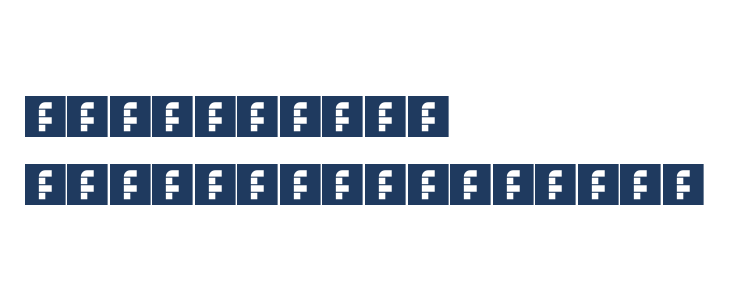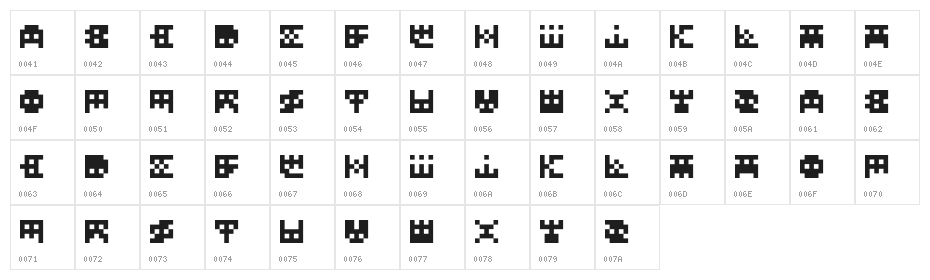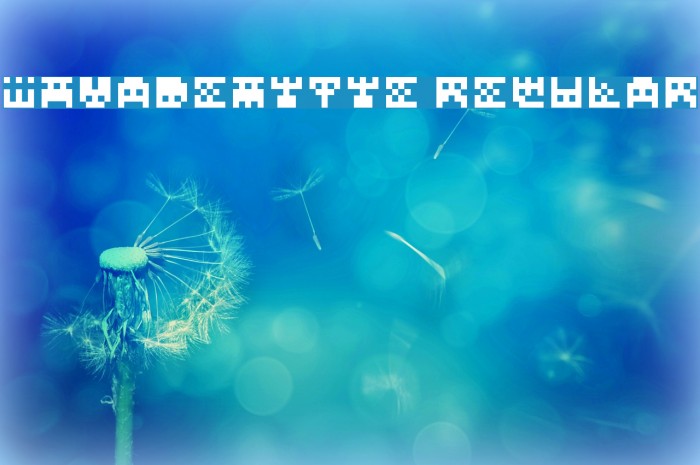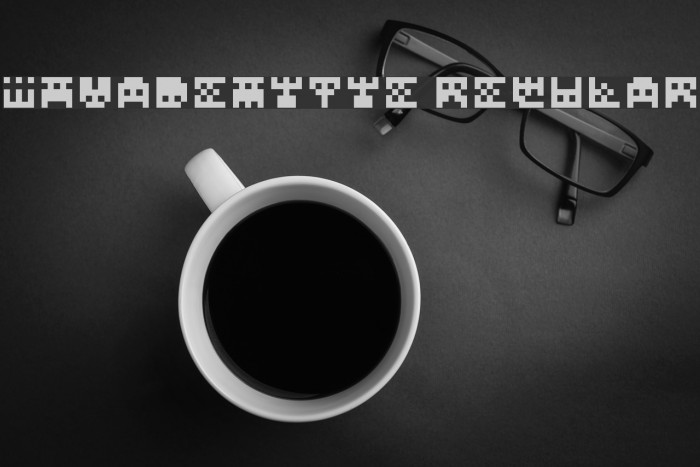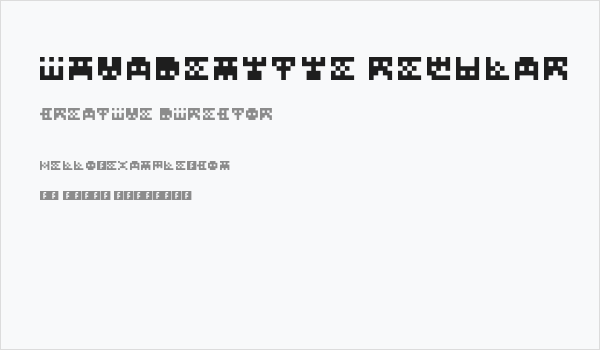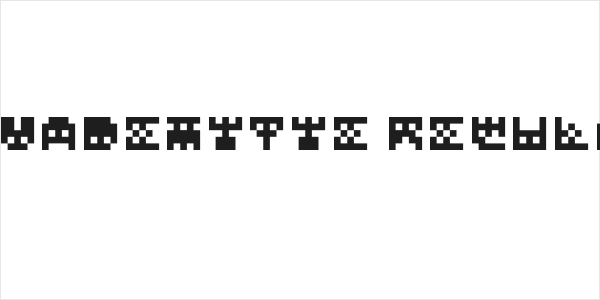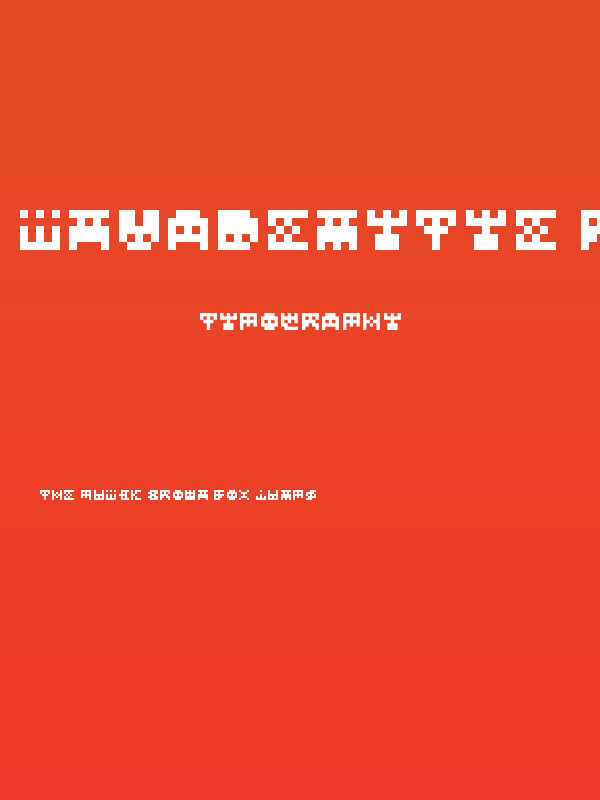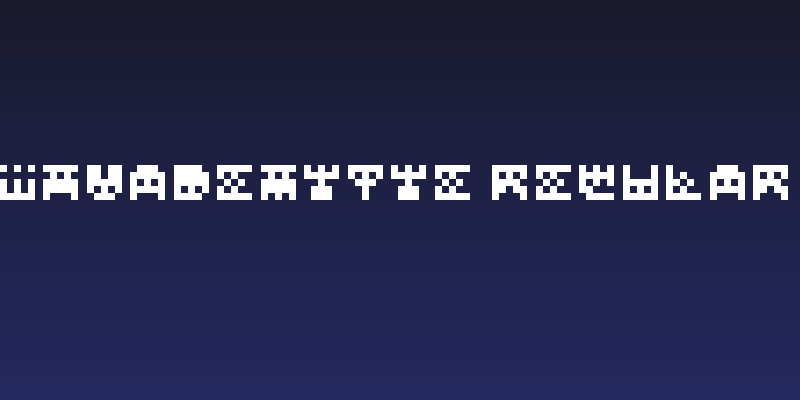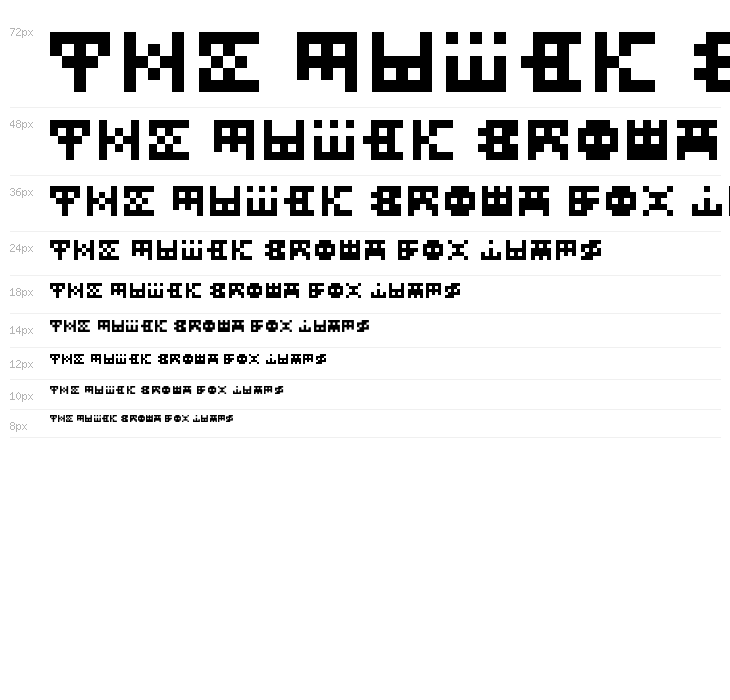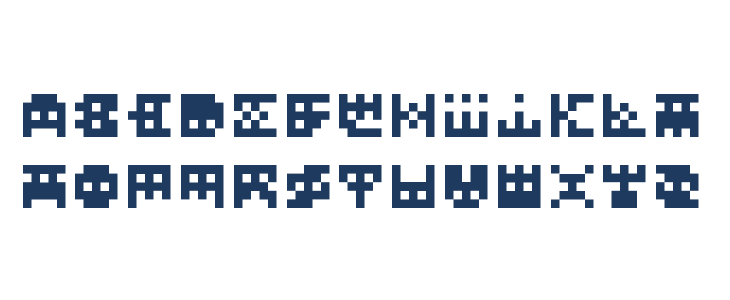
InvadeMytye Regular Font
InvadeMytye Regular Description
This font features a unique, pixelated design reminiscent of retro video game graphics. Each character is composed of blocky, square shapes that give it a distinctly digital and futuristic appearance. The uppercase and lowercase letters maintain a consistent style, with minimal curves and a strong emphasis on geometric forms. The numbers and special characters follow the same aesthetic, ensuring uniformity across all glyphs. This font's bold and striking look makes it ideal for projects that aim to capture a sense of nostalgia or a tech-inspired theme.
| Overall Style | Retro, Digital |
| Proposed Projects | Ideal for video game designs, tech-themed posters, retro-style branding, and digital art projects. |